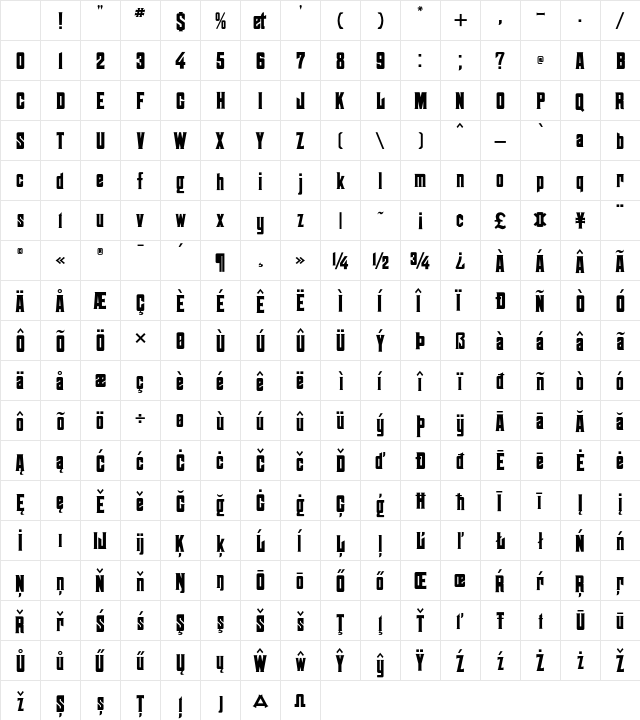
Complete Chausson CF Bold glyph index. Displaying only characters natively supported by Chausson CF Bold font.
Chausson CF is a composed and adaptable typeface that performs quietly and consistently across a wide range of design contexts. Its bold stroke weight gives it real presence on the page.